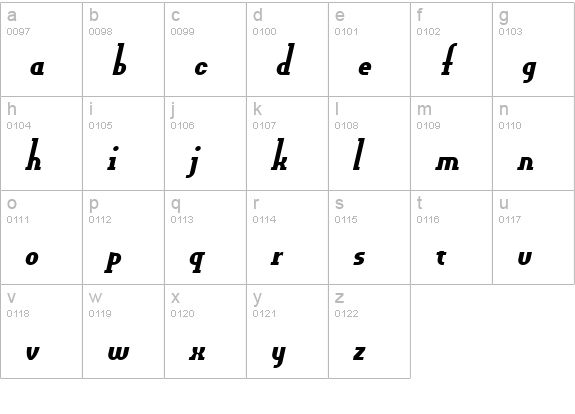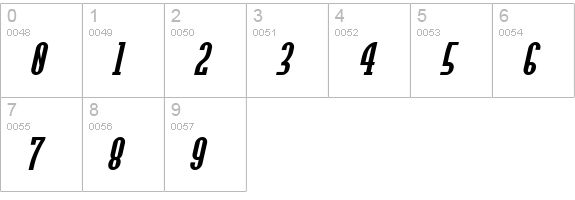
OLDNEW Slider Font Details
OLDNEW Slider font is a modern and stylish typeface that effortlessly combines classic elegance with a contemporary touch. Its sleek and sophisticated design makes it perfect for a wide range of design projects, from branding to editorial design. The clean lines and unique character shapes of OLDNEW Slider font give it a distinct and eye-catching appearance that is sure to make your text stand out. What's even better is that OLDNEW Slider font is available for free download at FontsMarket.com. This means you can easily access this high-quality font and use it in your projects without any cost. Whether you're a professional designer looking to add a fresh font to your collection or a hobbyist looking to enhance your creative projects, OLDNEW Slider font is a fantastic choice that won't break the bank. Download it today and elevate your designs with this versatile and stylish typeface.